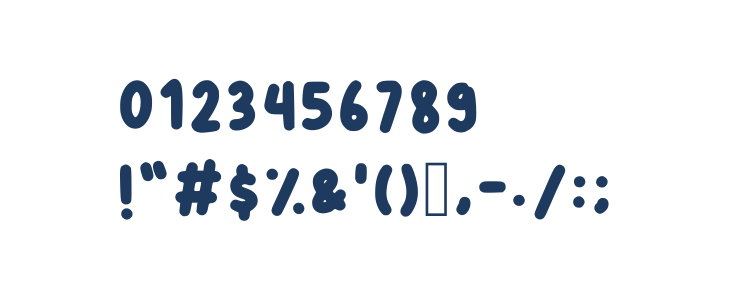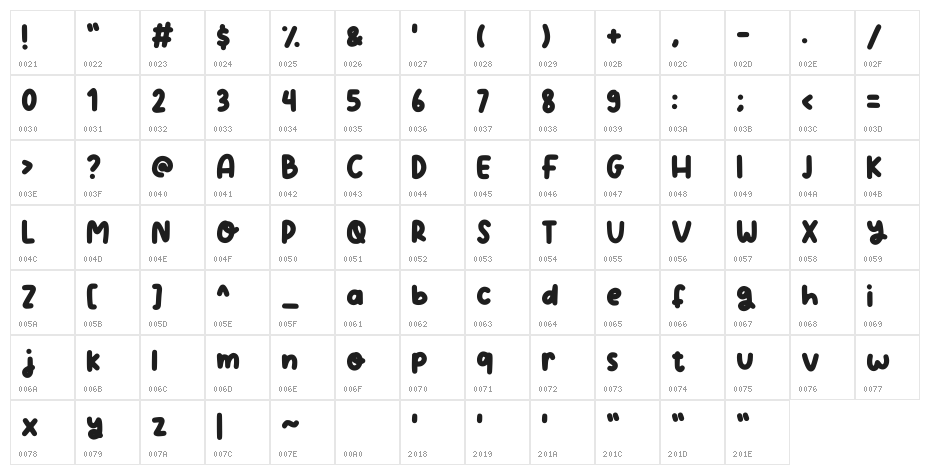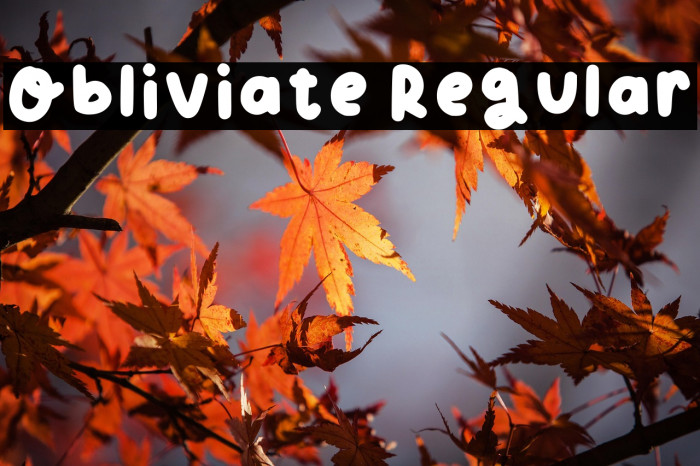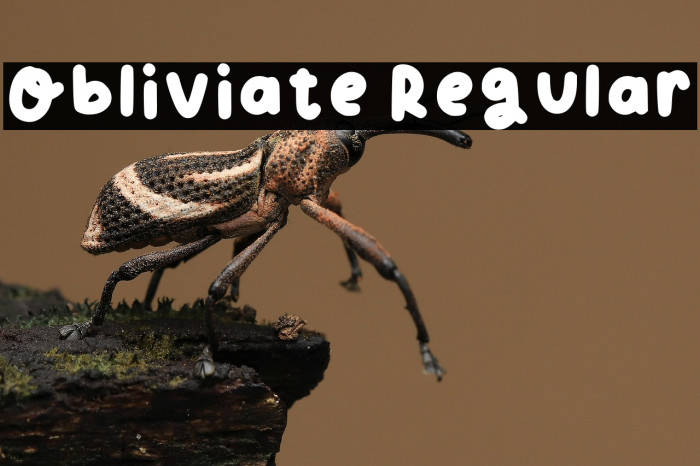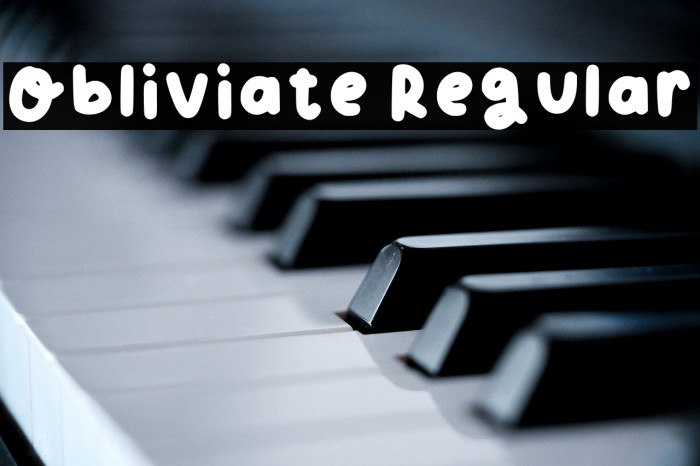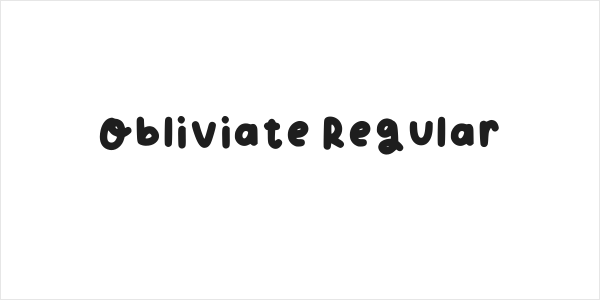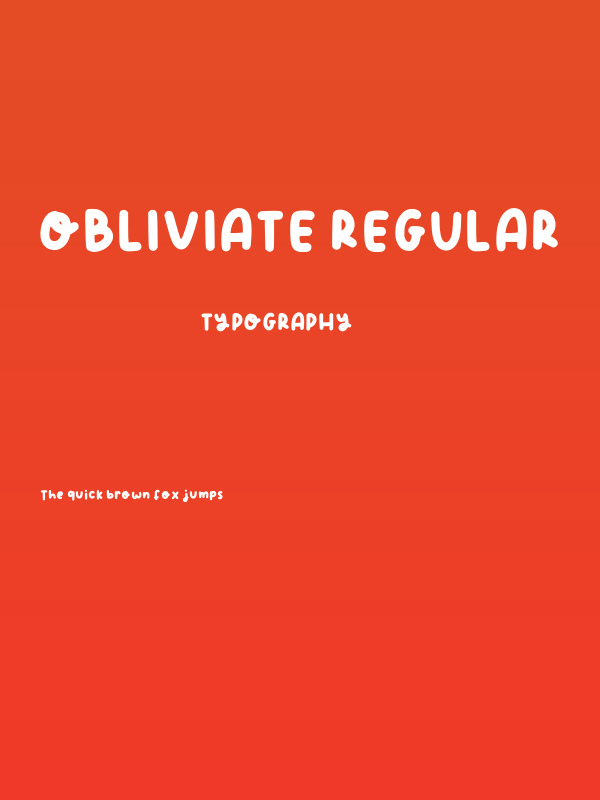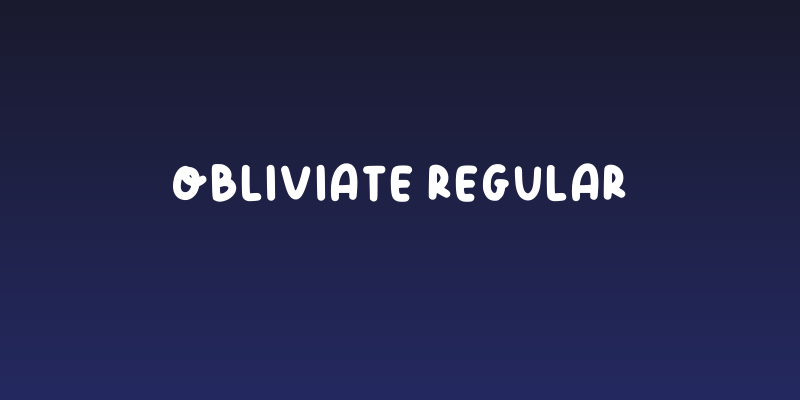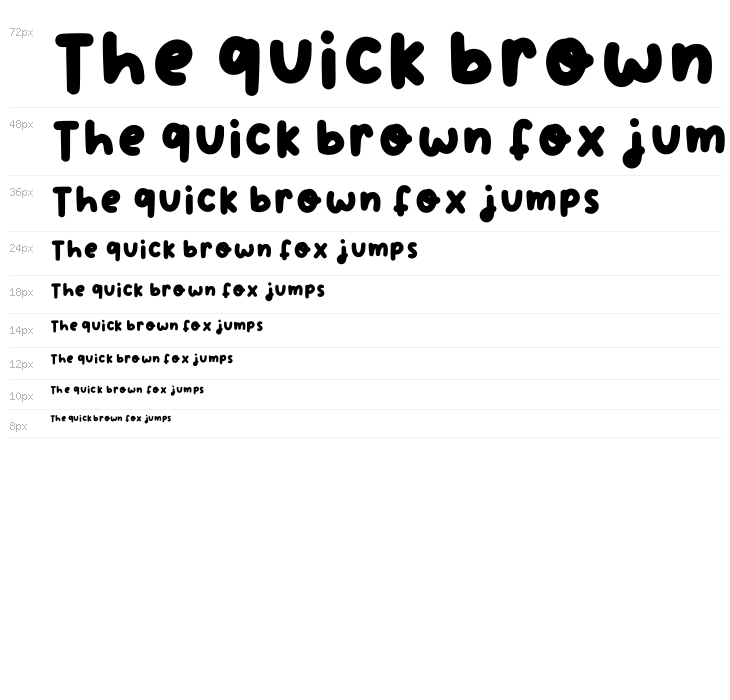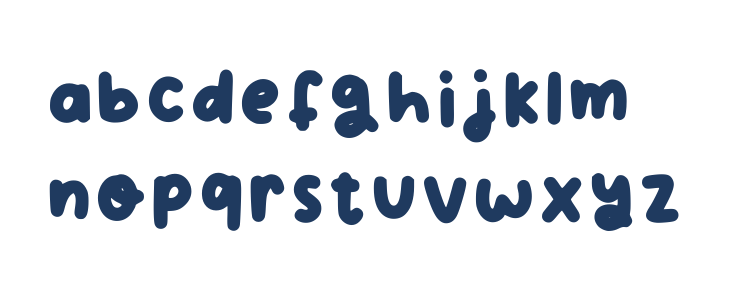
Obliviate Regular Font
Obliviate Regular Description
This playful and bold font features rounded, thick strokes that give it a friendly and approachable appearance. The characters are slightly irregular, adding a whimsical touch that makes it stand out. Its boldness ensures high visibility, making it suitable for attention-grabbing designs. The font maintains a consistent stroke width throughout, contributing to its cohesive look. The rounded edges soften the overall appearance, making it ideal for projects that require a casual and fun vibe. The spacing between characters is relatively tight, which enhances its compact and dense look.
Overall StylePlayful
Proposed ProjectsIdeal for children's books, playful branding, casual invitations, and fun posters.